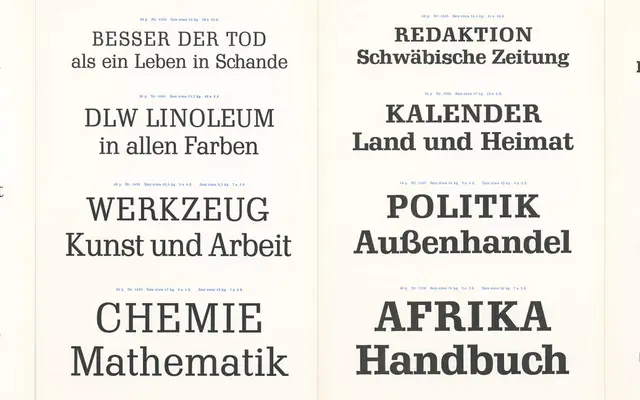
Gimlet
David Jonathan Ross · David Jonathan Ross
A 112-style serif family inspired by Georg Trump's 1938 Schadow, reinterpreted by David Jonathan Ross as a contemporary workhorse with three optical sizes and four widths per size.
Where Schadow was chaotic and inconsistent across its release history, Gimlet imposes coherence while preserving the source material's essential oddity. Three optical sizes — Display, Text and Micro — each come in four widths from regular to condensed, making the family unusually well-suited to responsive layouts and narrow measures. The italic takes an idiosyncratic route, mixing sloped Roman letterforms with exuberant cursive ones, and stylistic alternates let the user calibrate how far that cursiveness runs.
A high-contrast serif with superelliptical forms and an eclectic italic that blends sloped Roman and cursive shapes, drawing directly from Georg Trump's Schadow. The optical size structure and four-width system place it firmly as a contemporary text and display serif.